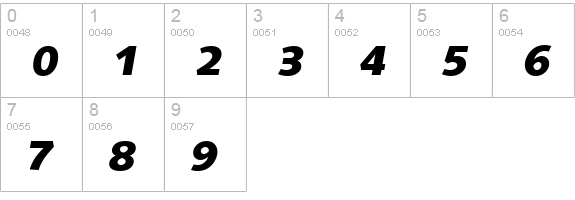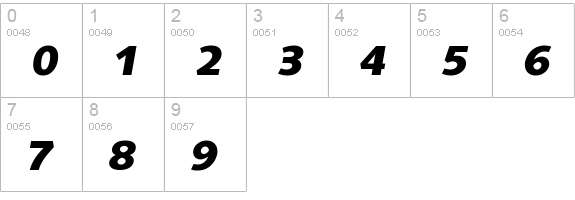
SaxonySerial-Xbold-Italic is a distinctive, italic variant in the SaxonySerial typeface family \xE2\x80\x94 well suited to design and typography projects.
SaxonySerial-Xbold-Italic font is a bold and elegant typeface that exudes sophistication and modernity. With its stylish italic design and strong presence, this font is perfect for making a statement in any design project. The sharp angles and sleek curves of SaxonySerial-Xbold-Italic create a unique visual impact that commands attention. What makes SaxonySerial-Xbold-Italic even more appealing is that it is available for free download at FontsMarket.com. This means that you can easily access this stunning font to elevate your designs without any cost. Whether you are working on a branding project, a website design, or any other creative endeavor, SaxonySerial-Xbold-Italic is sure to add a touch of class and flair. Download it today and see for yourself the power and versatility of this striking font.